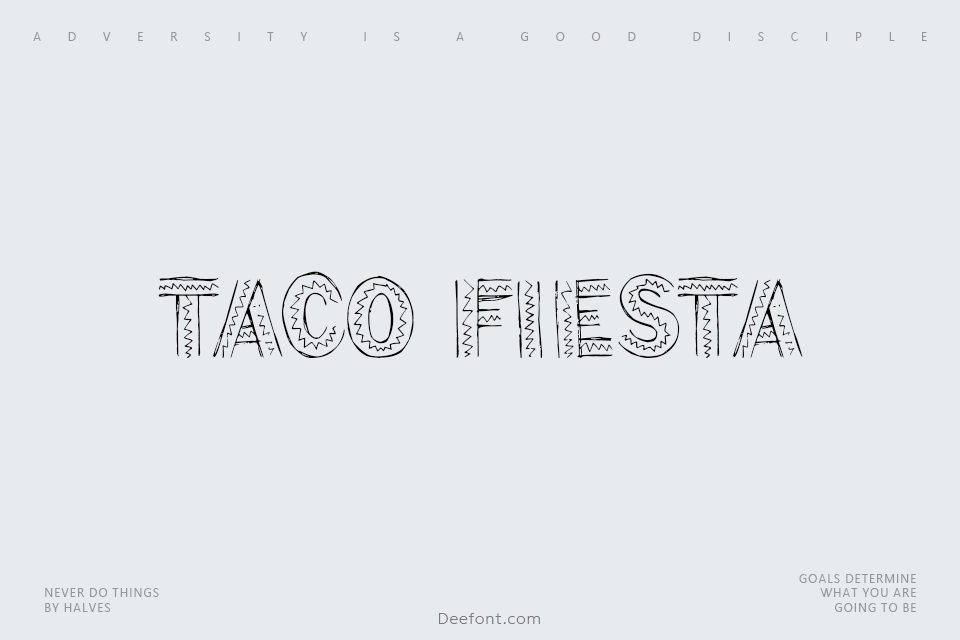
Taco Fiesta Font
Taco Fiesta is a vibrant display font inspired by Mexican culture, featuring bold, triangular geometric lines reminiscent of traditional taco designs. Created with a playful aesthetic, this typeface excels in food packaging, restaurant branding, and festive projects. The font includes only uppercase letters and 99 glyphs, making it ideal for headlines and eye-catching designs that demand attention and personality in casual to semi-formal contexts.